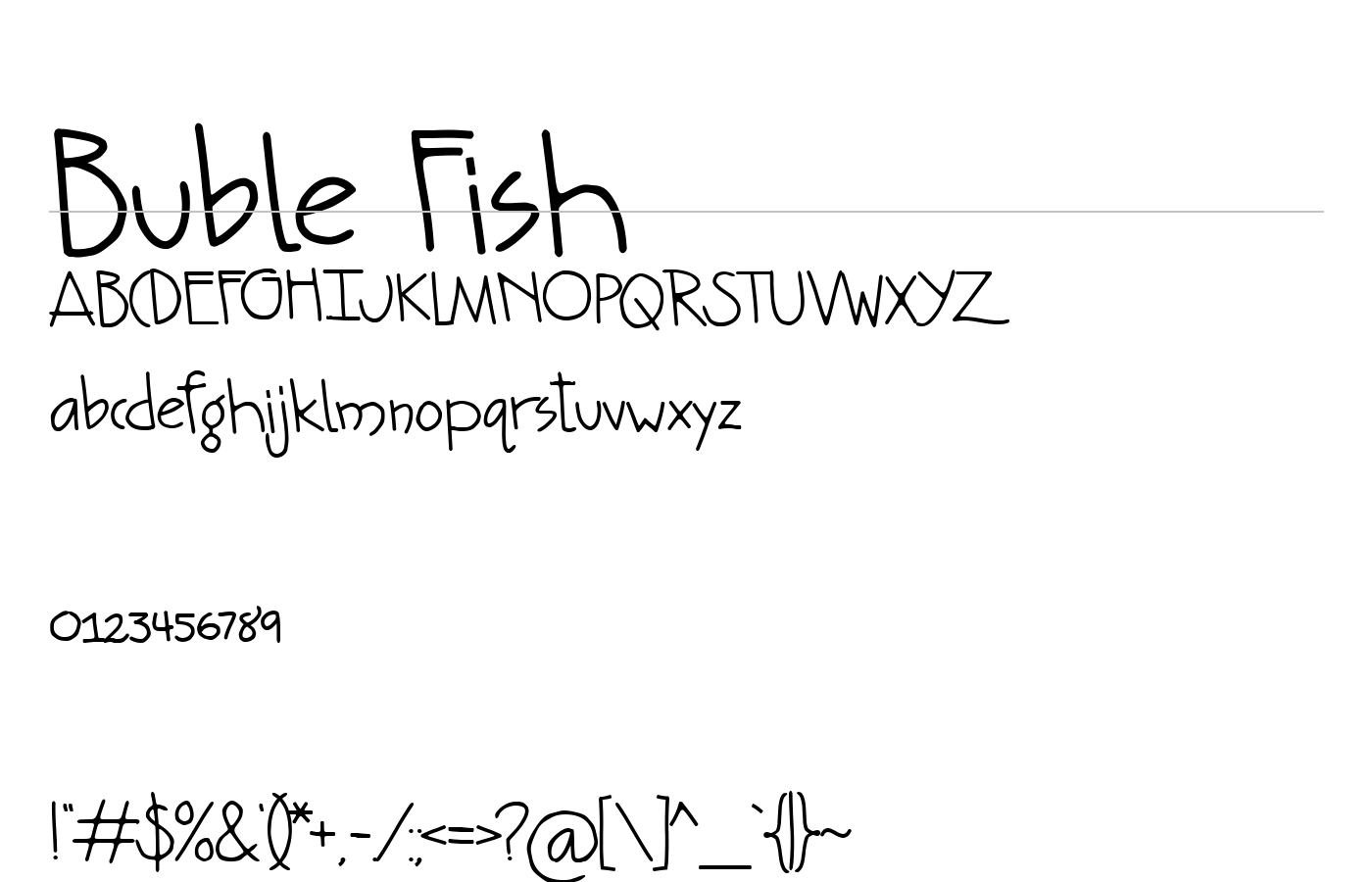
Buble Fish is a playful, handwritten sans serif font with a casual and quirky style, featuring irregular strokes and whimsical letterforms that create a fun, approachable feel. Its light weight and airy spacing make it ideal for creative projects, children’s designs, or informal branding that seeks a friendly and unique personality. This font works best for headlines, logos, and packaging where a joyful, relaxed tone is desired.
Buble Fish Font
About Buble Fish Font
| Font family | Buble Fish Font |
| Designer | Ali Hamidi |